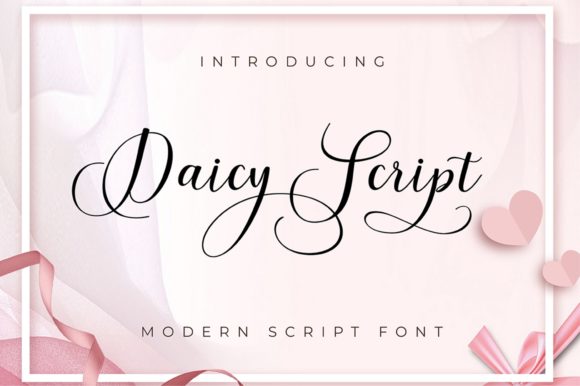
Immerse yourself in an enchanting world of typography with Daicy Script Font, a creation of Stellar Studio. This captivating script font beckons you to express your creativity with elegance. Its unique character lies in its irregular baseline, bringing a touch of dynamism to your designs.
Unleash the boundless possibilities of Daicy Script Font in the realm of wedding invitations. Let your heartfelt words take shape in a font that radiates romance and sophistication. Craft thank you cards that leave a lasting impression, extending your gratitude with a font that speaks volumes.
Step into the world of graphic design with Daicy Script Font, a font that effortlessly elevates your creations. Craft logos that exude a sense of individuality and style, capturing the essence of your brand. Design business cards that leave a lasting impression, reflecting your professionalism and creativity.
With Daicy Script Font, quotes take on a new life. Transform ordinary words into captivating expressions, adding a touch of inspiration and beauty to any space. Create greeting cards that warm hearts and bring joy, spreading happiness with every stroke of this elegant font.
Embark on a creative journey with Daicy Script Font, a font that ignites your imagination. Let your creativity flow as you explore the endless possibilities of this remarkable font. Dive into a world where words and design intertwine, where Daicy Script Font becomes your faithful companion in expressing your unique style.